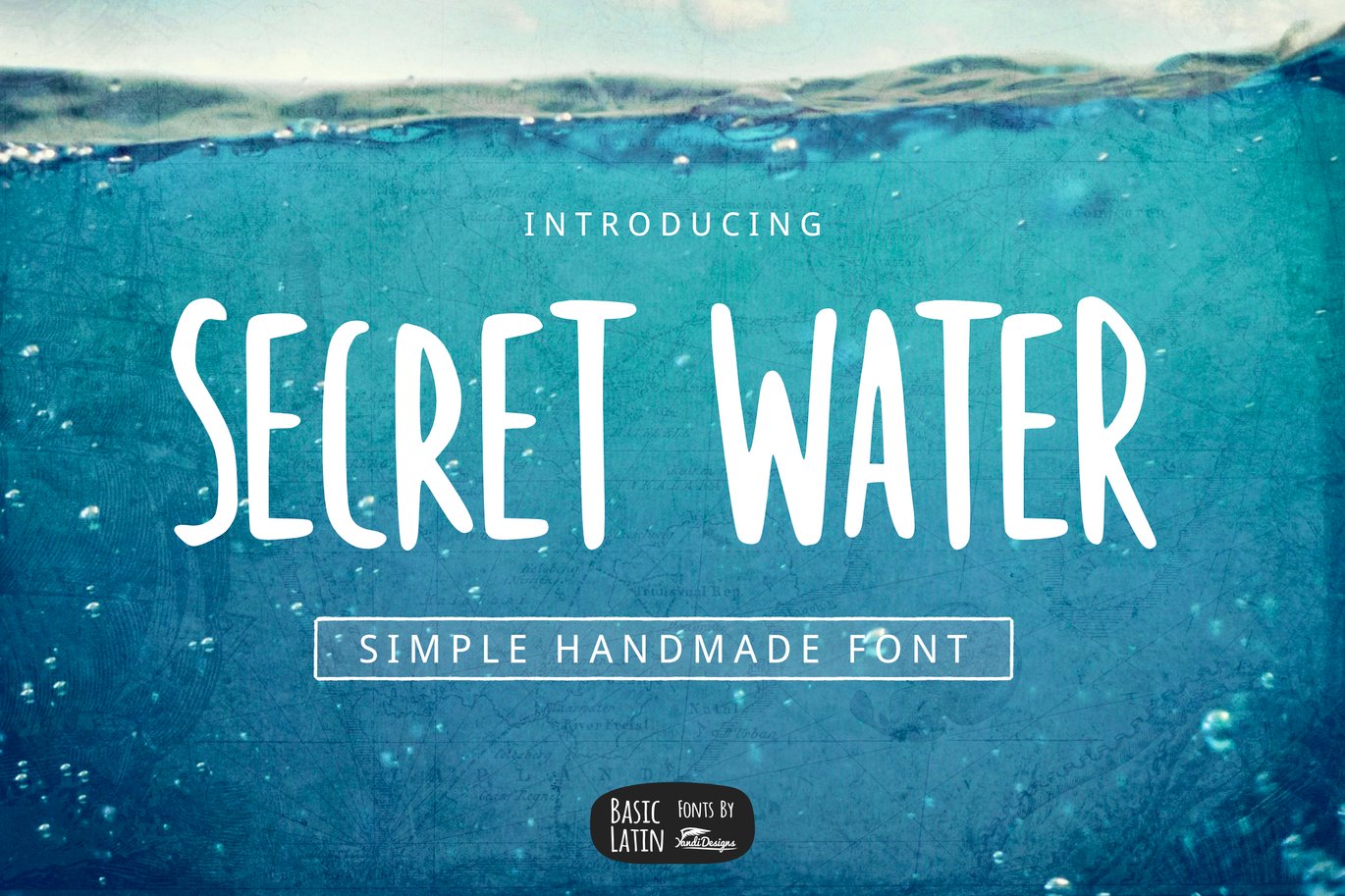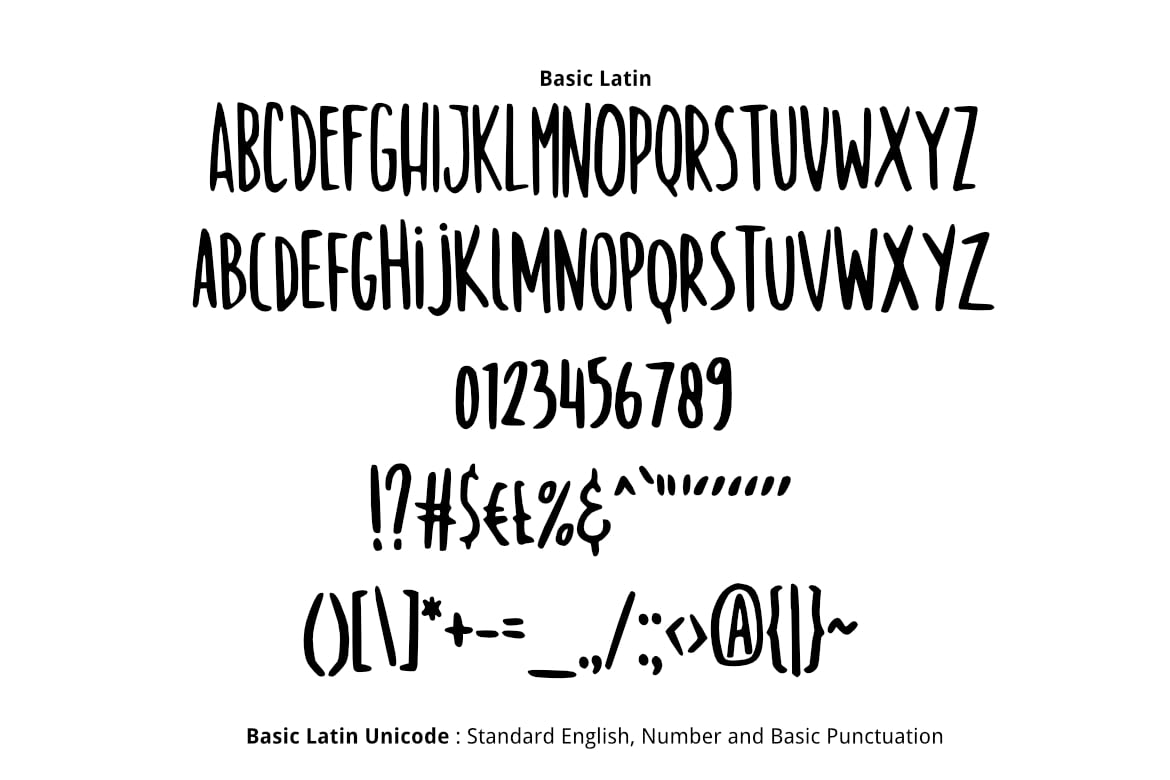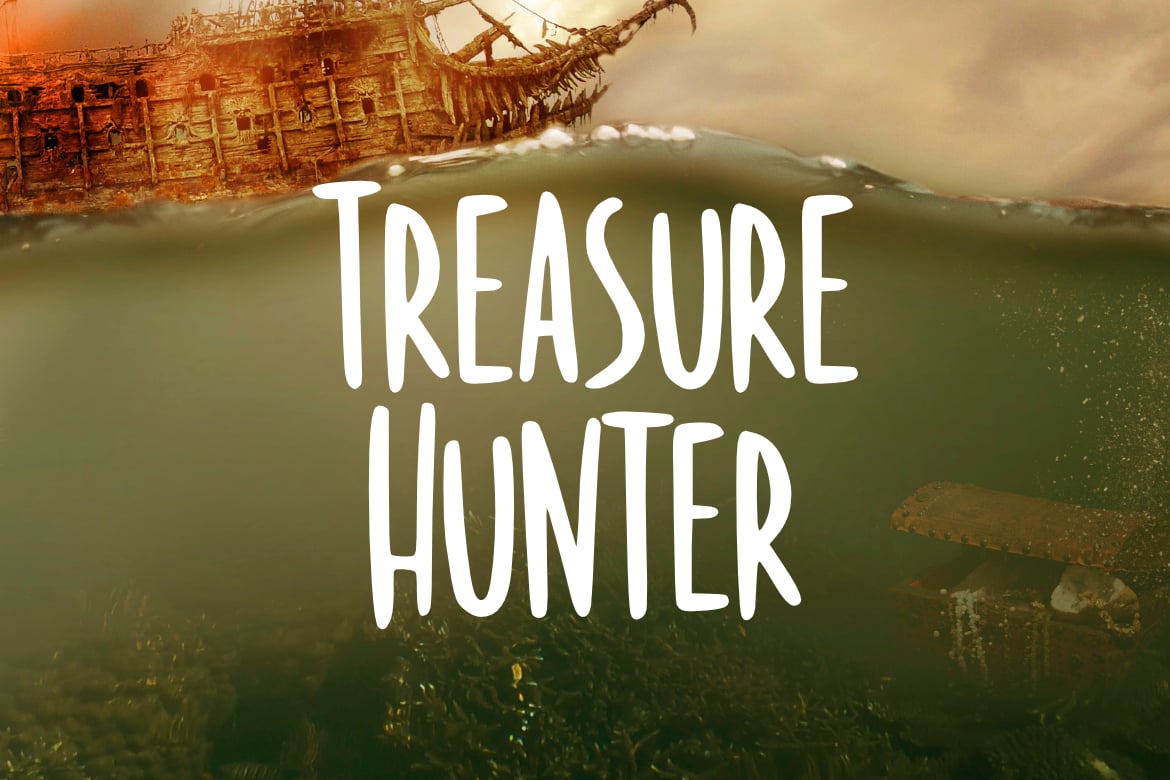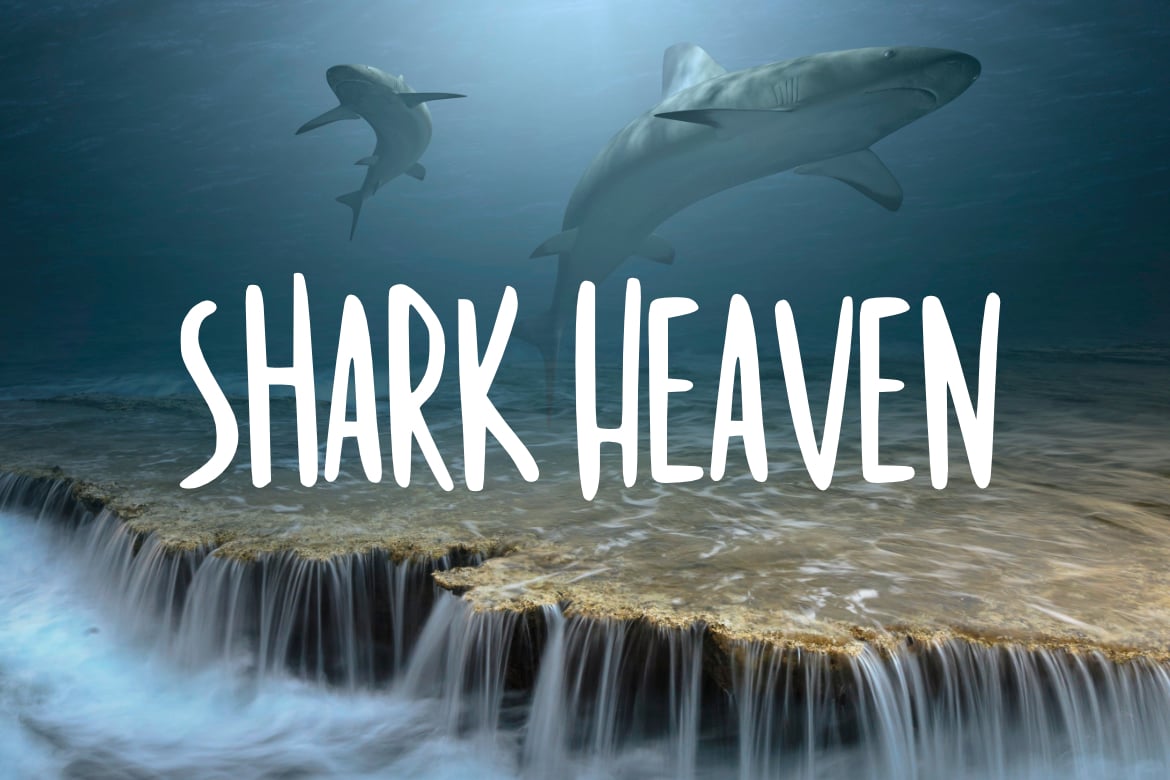
Secret Water Simple Font
Secret Water is simple handmade multipurpose font , suitable for many project children book, quotes, logo , heading , title etc.
Basic Latin (Standard English character , number, symbol)